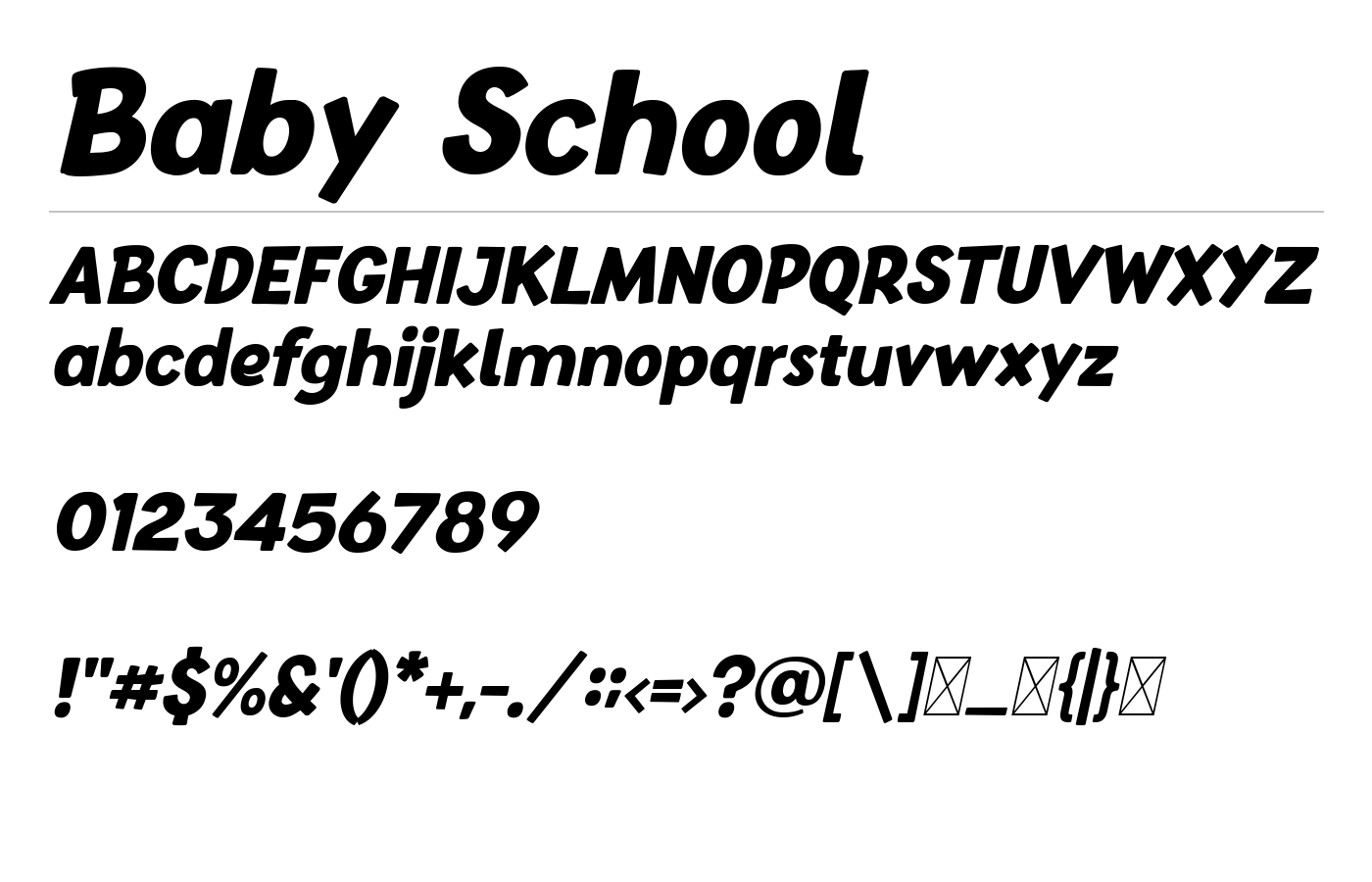
Baby School is a playful, rounded sans serif font with an informal, slightly italicized style that gives it a friendly and approachable feel. Its sturdy weight, soft curves, and simple shapes make it perfect for children's products, educational materials, and casual branding where clarity and warmth are essential. This font works well in headlines and display text, adding a fun yet readable touch to any project.
Baby School Font
About Baby School Font
| Font family | Baby School Font |
| Designer | Zamroni Hamzah |